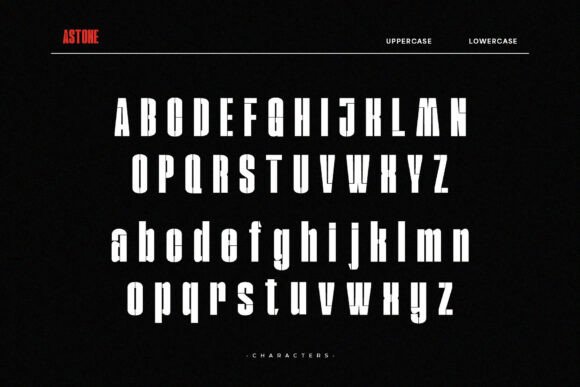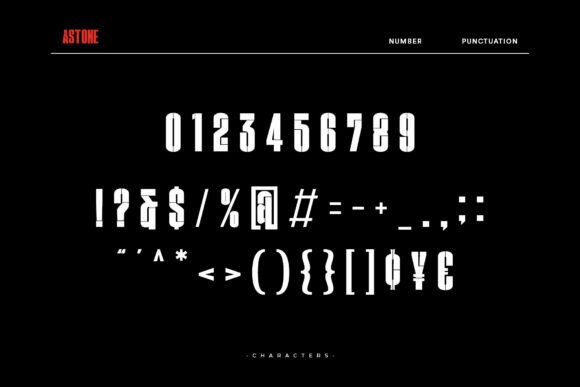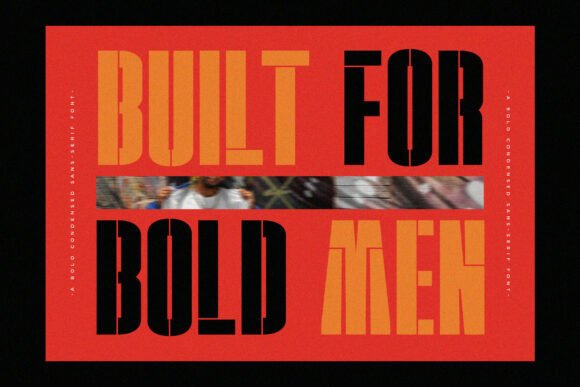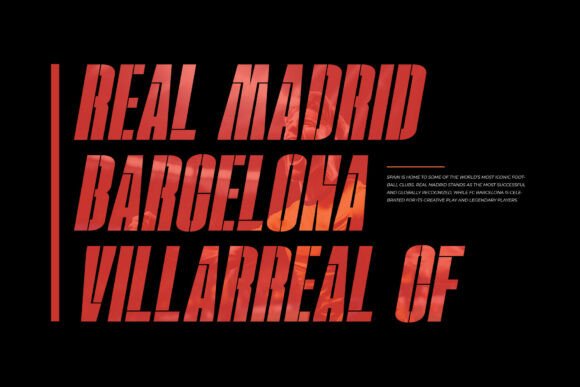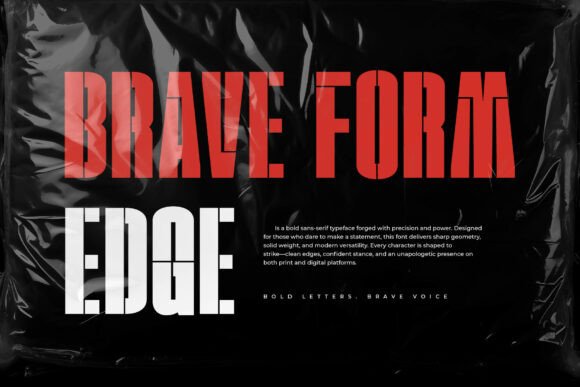
Astone Font: Elevate Your Design with Modern Minimalism
In the world of typography, a font can make or break a design. For designers and crafters seeking a typeface that embodies modern sophistication, Astone Font is an exceptional choice. This modern and minimal sans-serif typeface is specifically crafted for clean, sophisticated branding, making it perfect for a wide range of applications.
The Essence of Astone Font
Astone Font boasts sleek lines and elegant proportions, which lend themselves beautifully to editorial layouts, logo designs, packaging, and fashion-forward presentations. Its contemporary appeal is undeniable, yet it also possesses a timeless clarity that ensures it remains a reliable choice for designers. Whether you’re working on a luxury brand, a fashion magazine, or a high-end product, Astone Font brings a level of refinement that’s hard to match.
Key Features of Astone Font
- Modern and Minimal: Astone’s design is characterized by its clean and minimalist aesthetic. This makes it incredibly versatile for various design projects, from digital media to print.
- Sans-Serif Typeface: The sans-serif design of Astone offers a sleek and streamlined look, ensuring that your text is easy to read while also being stylish.
- Elegant Proportions: The carefully considered proportions of Astone ensure that it looks great in both large and small sizes, making it suitable for a wide range of applications.
- Timeless Clarity: While Astone has a distinctly contemporary feel, it also possesses a timeless quality. This ensures that your designs won’t look dated in a few years, saving you the hassle and expense of future redesigns.
Applications of Astone Font
The versatility of Astone Font makes it suitable for a variety of design projects. Here are some of the areas where Astone truly shines:
- Editorial Layouts: For magazines, newspapers, and digital publications, Astone provides a clean and sophisticated look that enhances readability and visual appeal.
- Logo Designs: The sleek and modern design of Astone makes it an excellent choice for logos, particularly for brands that want to convey a sense of luxury, sophistication, and modernity.
- Packaging: For product packaging, Astone offers a stylish and contemporary look that can help your product stand out on store shelves.
- Fashion-Forward Presentations: Whether you’re designing a fashion magazine, a clothing brand, or an accessories line, Astone’s elegant and refined aesthetic is sure to impress.
Why Choose Astone Font?
In a sea of typefaces, Astone Font stands out for several reasons:
- Simplicity with a Refined Finish: Astone strikes the perfect balance between simplicity and refinement. It’s not just a font; it’s a design statement.
- Versatility: From digital platforms to print materials, Astone performs exceptionally well across various mediums.
- Legibility: Despite its minimalist design, Astone maintains excellent legibility, ensuring that your message is always communicated clearly.
Astone Font is more than just a typeface; it’s a design tool that can elevate your projects to new heights of sophistication and elegance. Its modern minimalism, combined with its versatility and timeless appeal, makes it an excellent choice for designers and crafters looking to make a statement. Whether you’re working on a branding project, a fashion editorial, or product packaging, Astone Font offers the perfect blend of style, clarity, and refinement.
So, if you’re looking for a font that embodies the essence of modern design while ensuring clarity and elegance, look no further than Astone Font. It’s time to transform your designs with a typeface that truly understands the needs of contemporary designers.